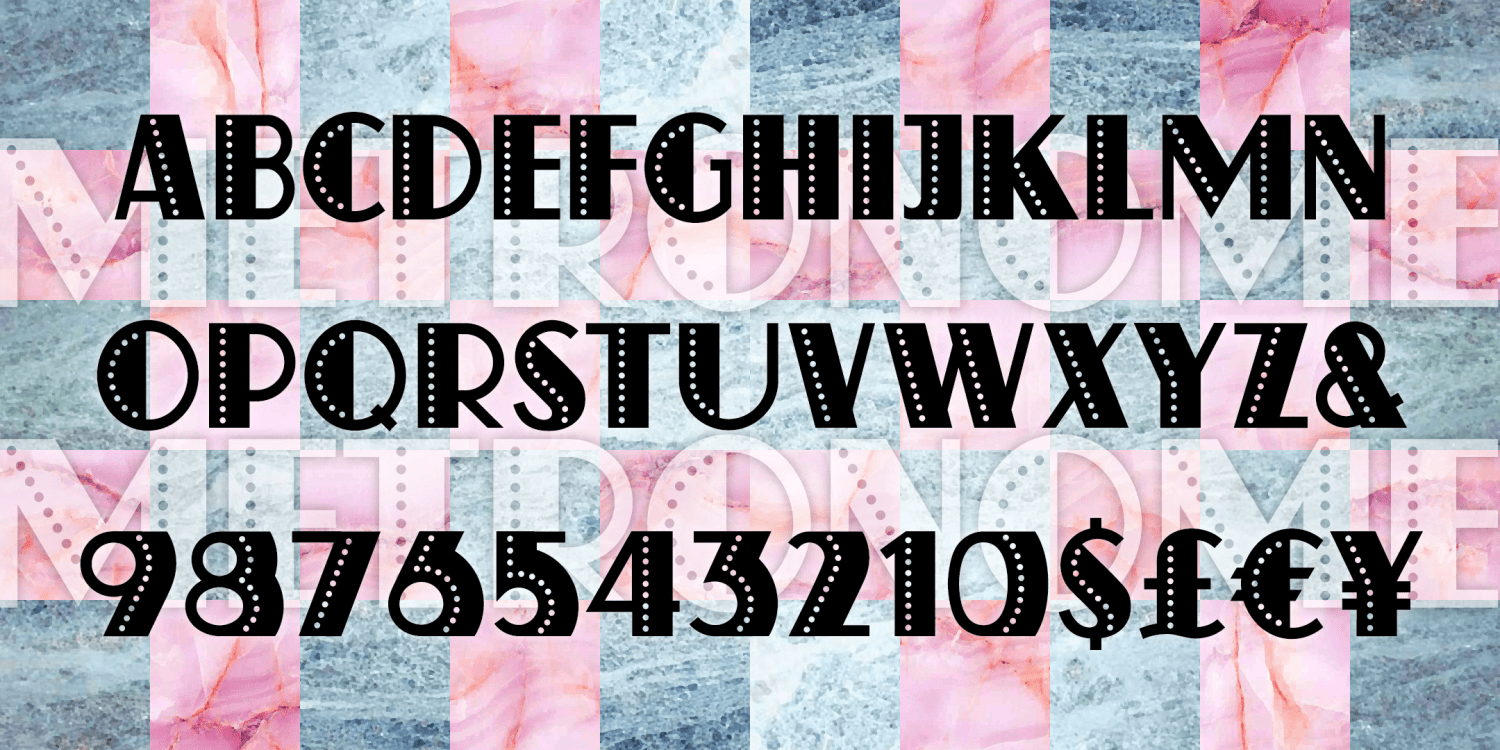
Metronome Pearls
METRONOME is a new Art Deco font inspired by vintage examples. Using my earlier ATLAS revival fonts as a starting point, I swapped out the pinstripe for a line of pearls and reduced the width of each letter. Bold but elegant.
The Metronome Pearls font family includes 336 glyphs.